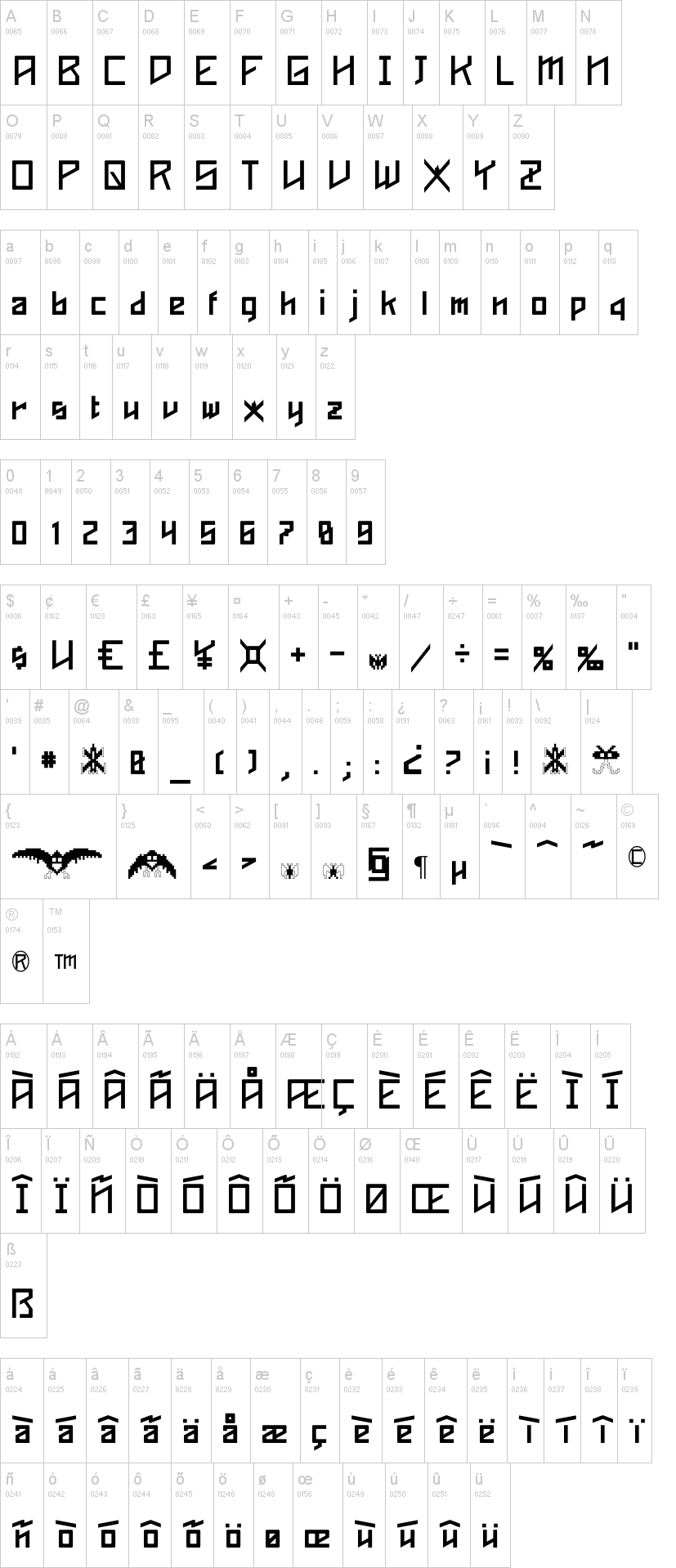
Phoenixians Italic.otfPhoenixians Bold.otfPhoenixians Bold Italic.otfNote of the authorPhoenixians is based on the logo and main sprites of Centuris videogame classic Phoenix arcade game. Includes full alphabet and a handful of special sprite characters. Includes regular, bold, italic, and bold-italic faces.